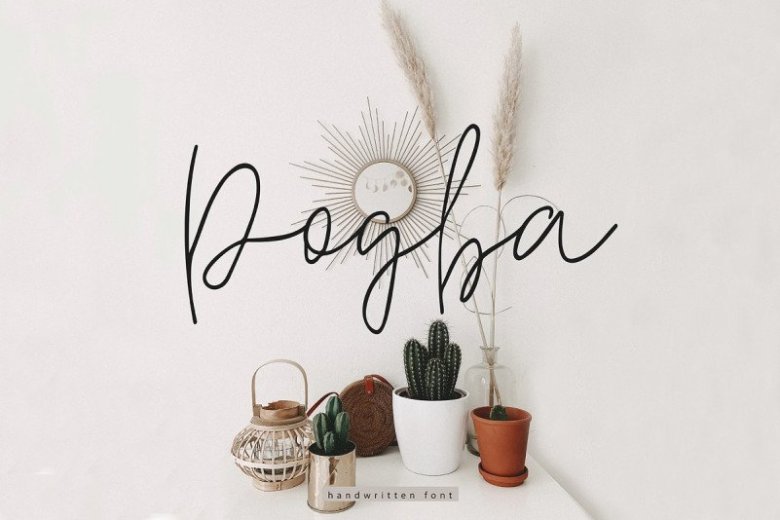
Pogba Font
Pogba Font is a signature modern font.
Its elegant style is perfect for branding, signatures, watermarks, business cards, clothing, magazines, web, and every other design which needs a classy touch.